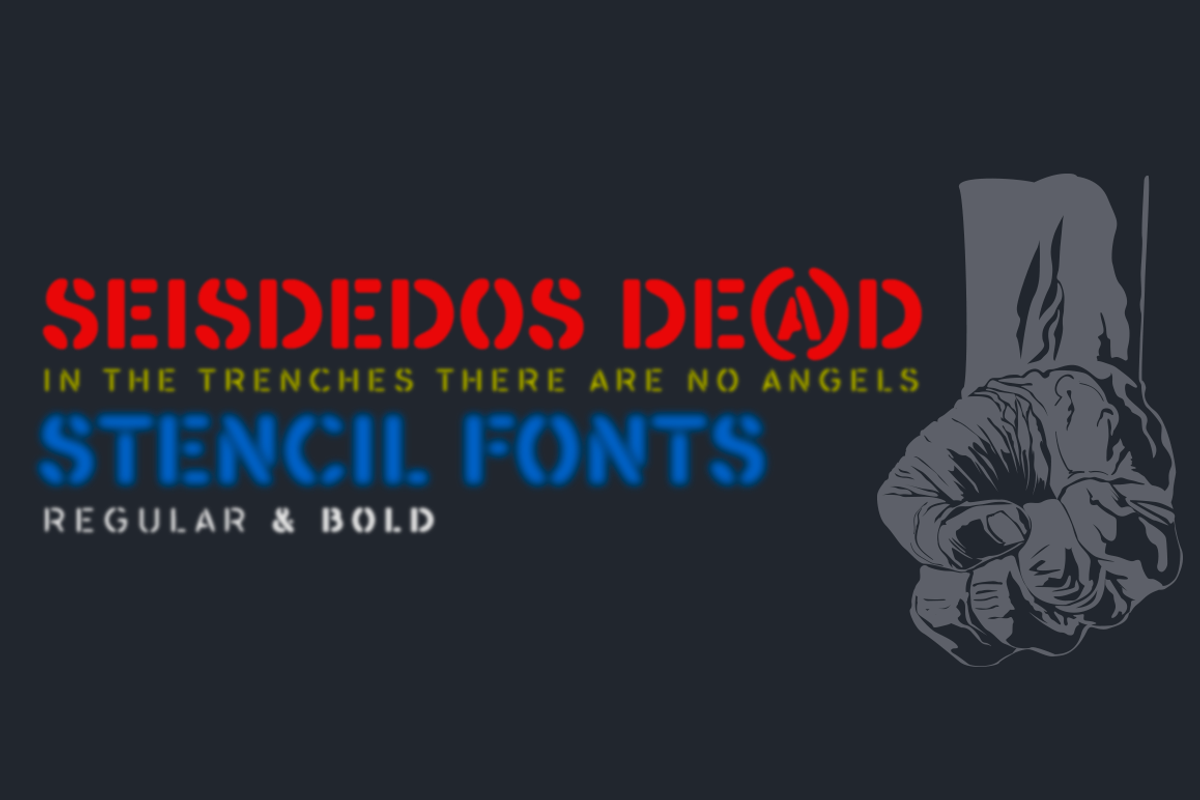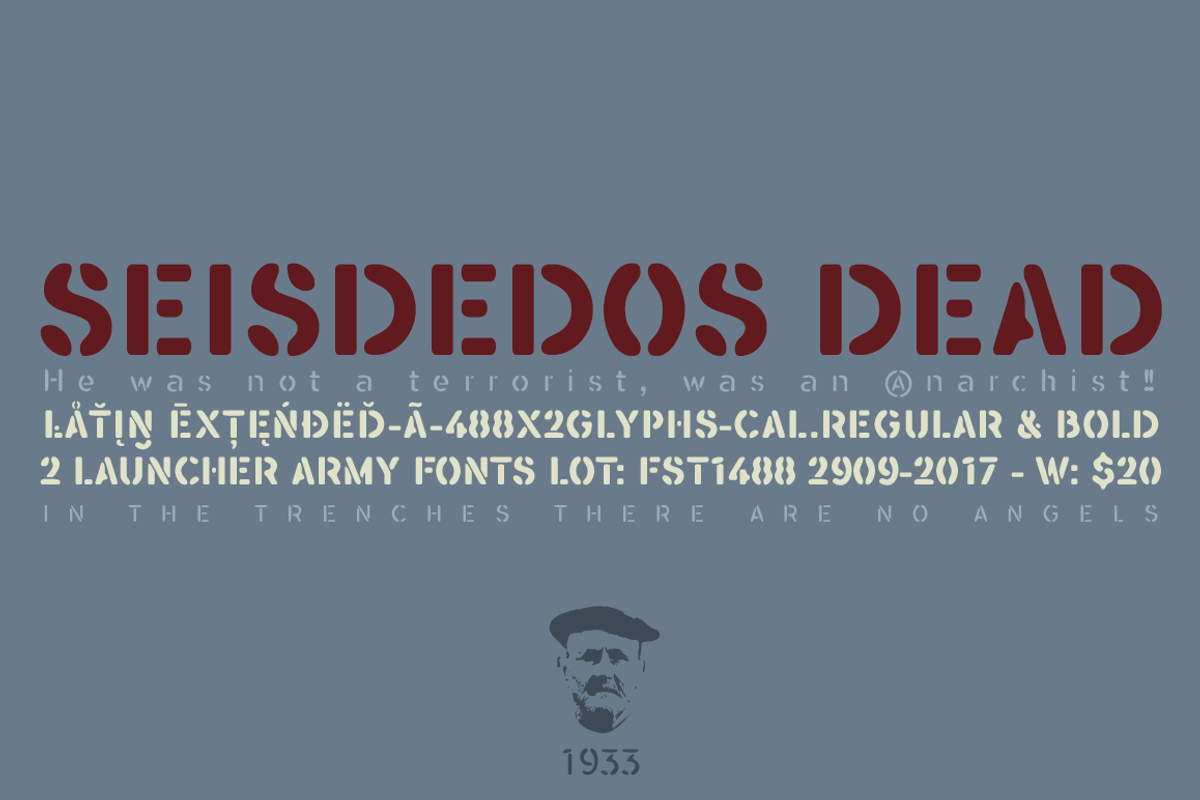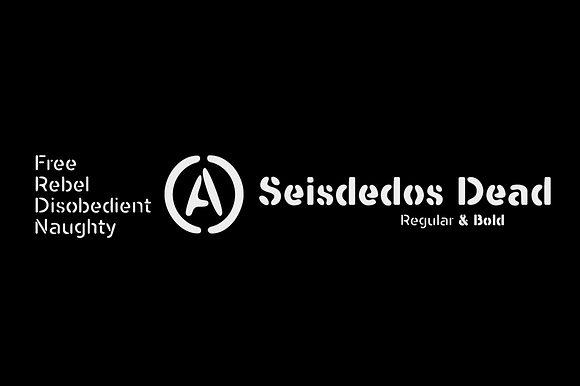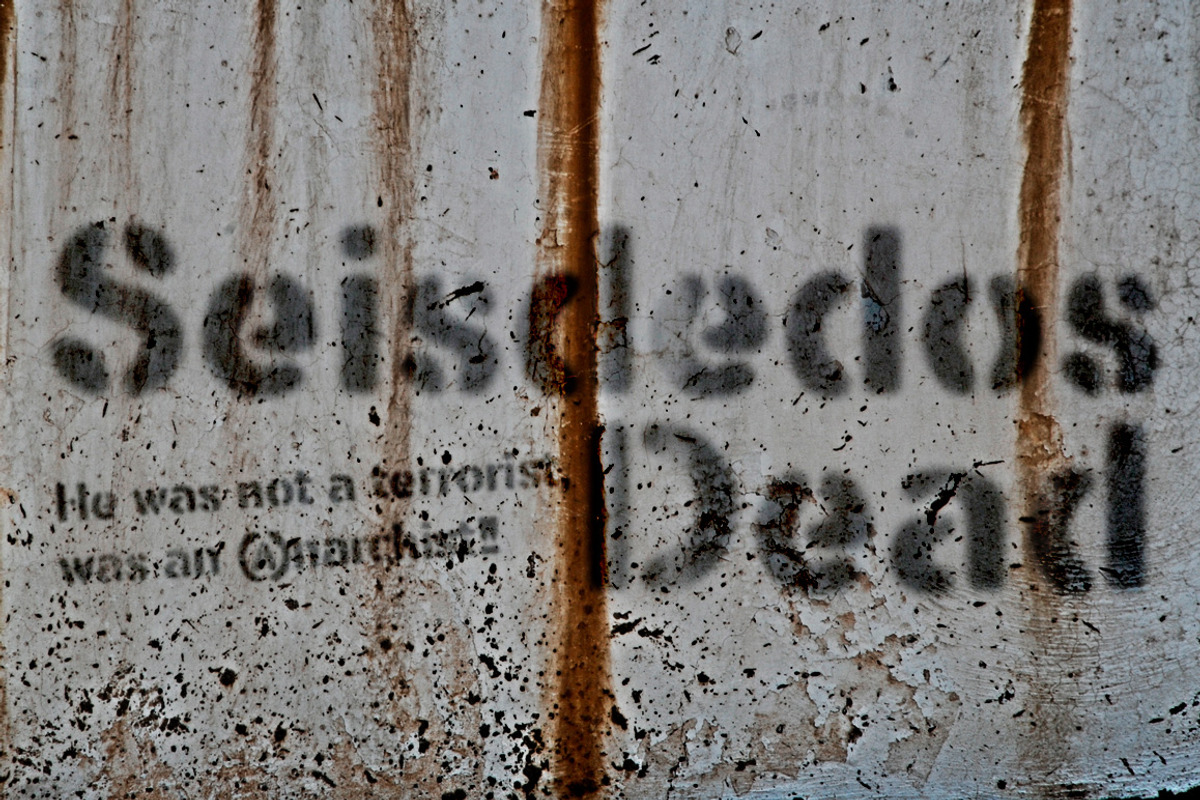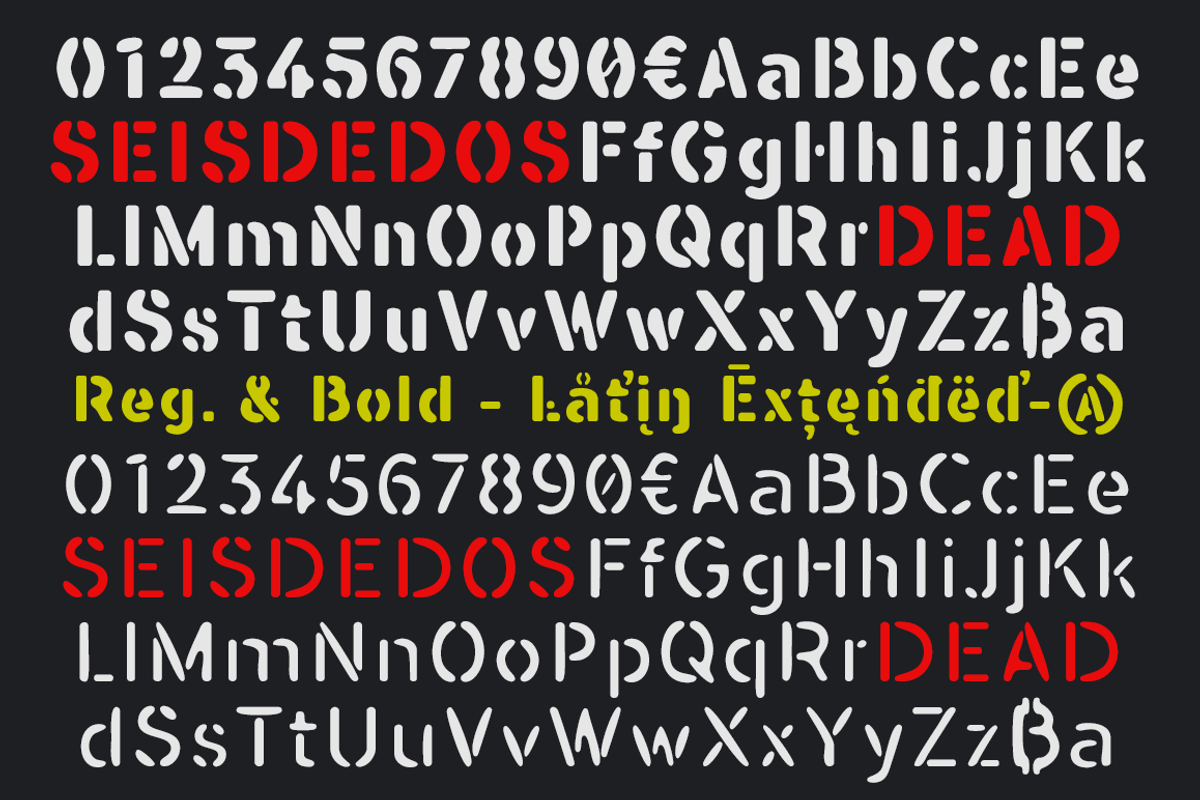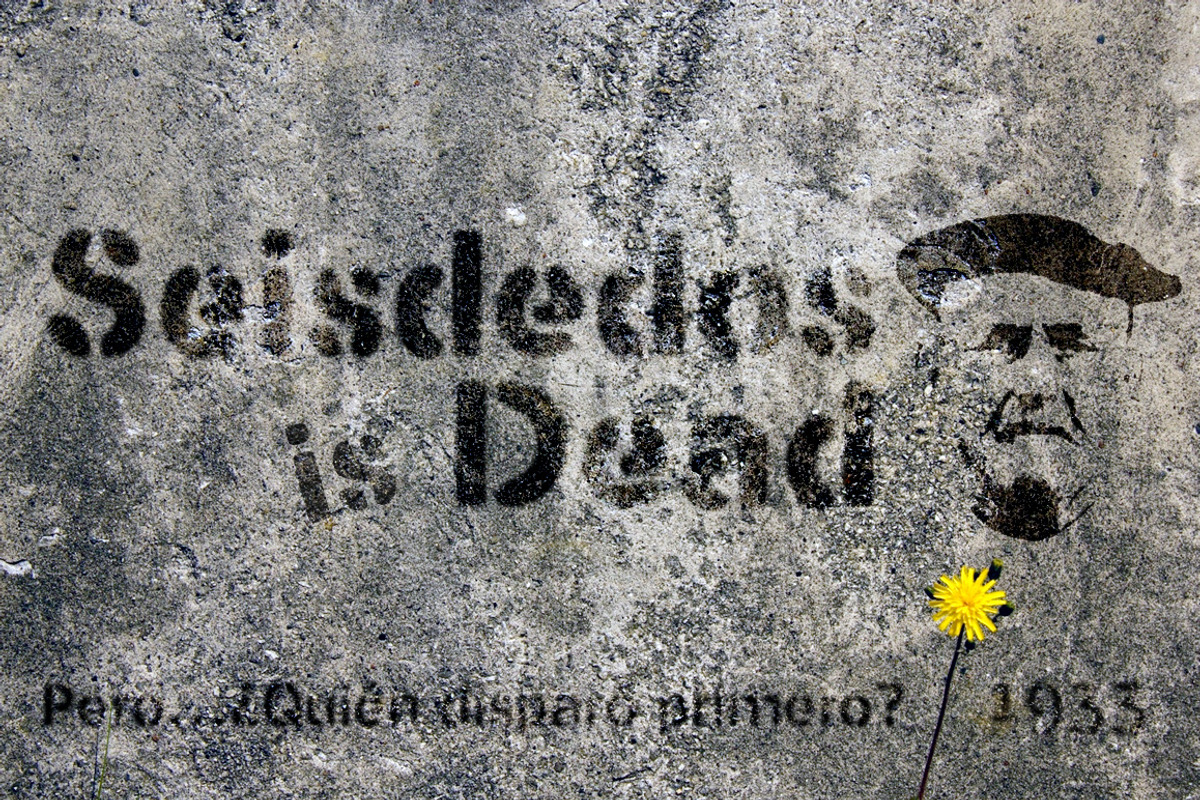
Seisdedos Dead Stencil -2 Fonts-
Seisdedos Dead are two font (Regular & Bold) of type stencil eroded by the use. A fun typographic game for the de-construction of the original letters, to print a worn style where the passage of time is appreciated.
Funciones OpenType: Oldstyle Figures, Superscript, Ordinals, Superiors, Capital Spacing, Superior letters, Subscript, Standard Ligatures, Additional languages, Slashed Zero, All Alternates, Scientific Inferiors, Alternate Annotation Forms, Extended Fractions, Denominators, Fractions, Discretionary Ligatures, Numerators, Historical Forms, Historical Ligatures, Inferiors, Kerning, Localized Forms.
They include the Bitcoin symbol. b# - (ligatures)